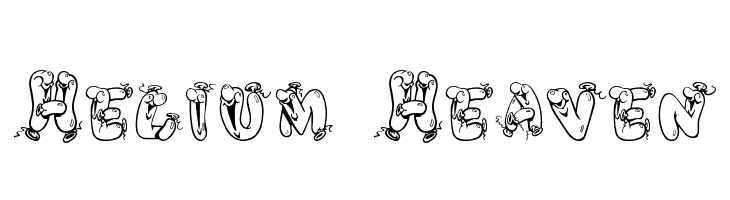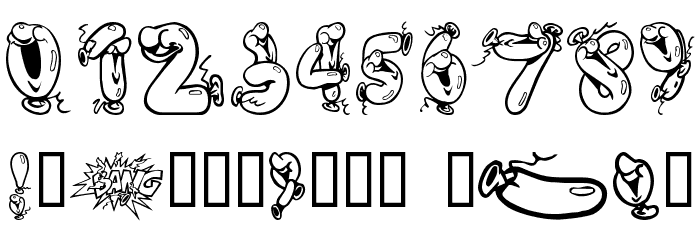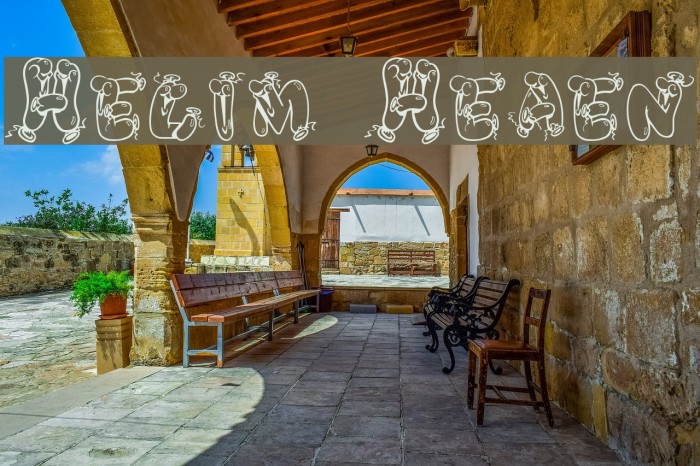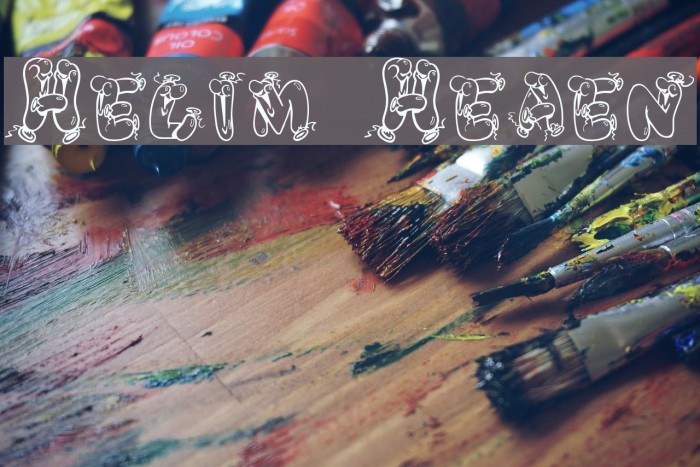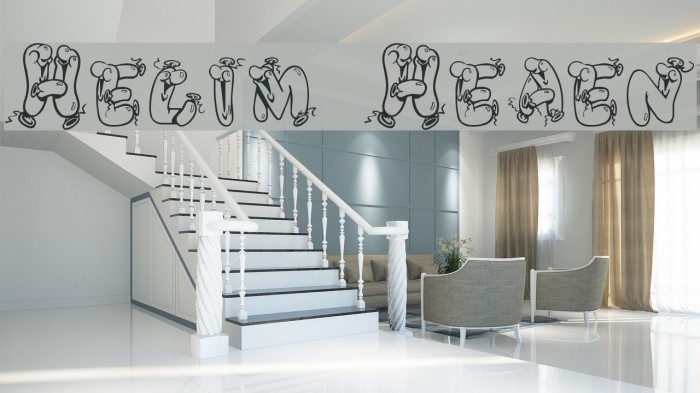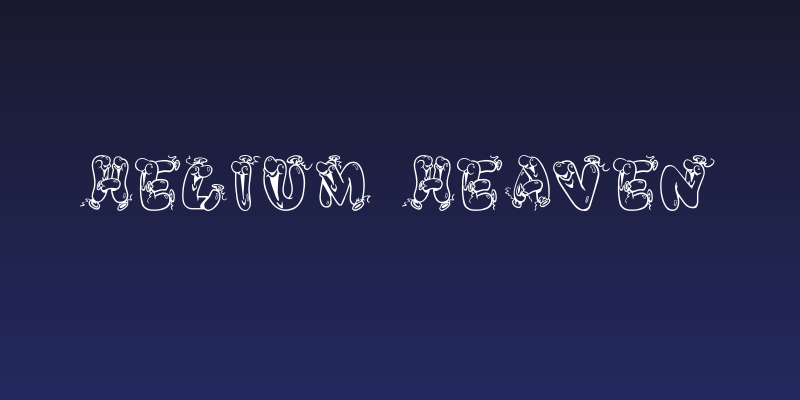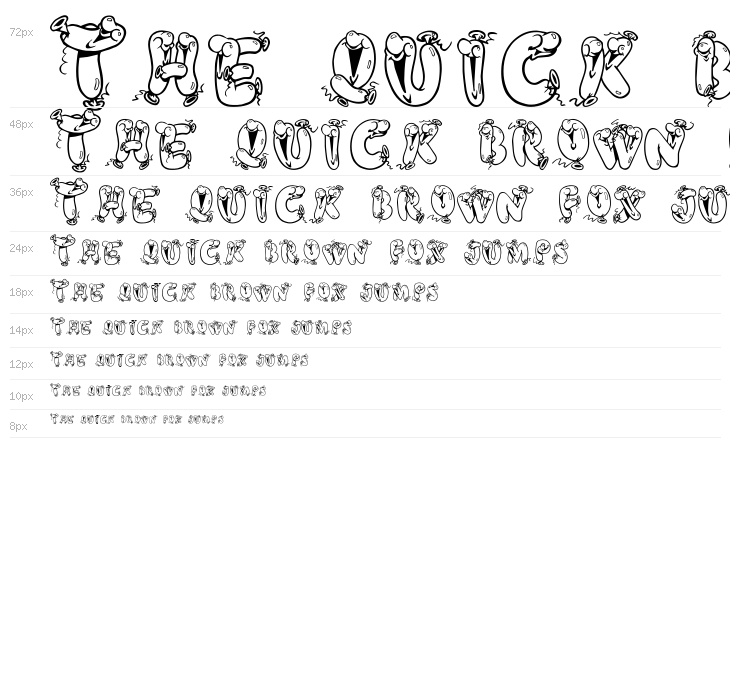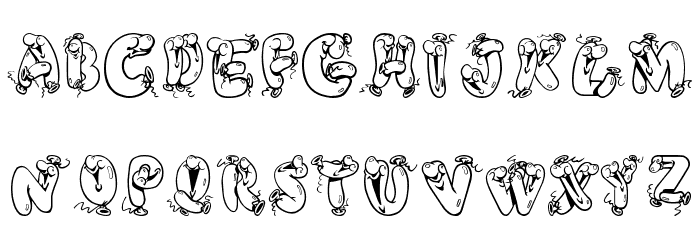
Helium Heaven Font
Helium Heaven Description
This playful and whimsical font features characters that resemble inflated balloons, each with a unique and quirky expression. The letters are bold and rounded, with exaggerated curves and playful details like eyes and smiles, giving them a cartoonish and lively appearance. The font is highly decorative, with each character standing out due to its distinctive personality and design. The numbers and special characters follow the same playful theme, adding a sense of fun and creativity to any project. This font is perfect for projects that require a lighthearted and entertaining touch.
| Proposed Projects | Ideal for children's books, party invitations, comic strips, and playful branding. |